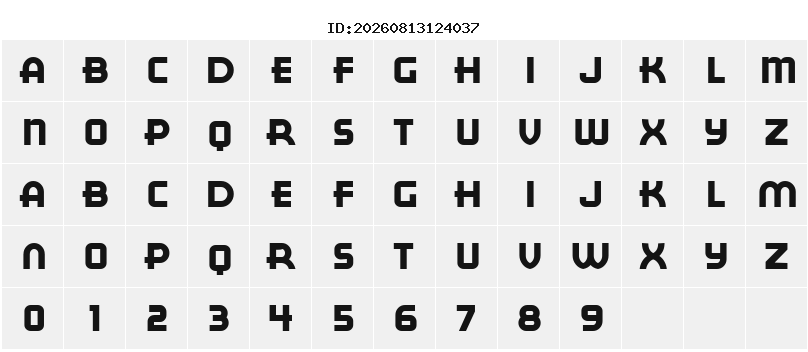
Red Circle Preview
About Red Circle.ttf
Red Circle.ttf is a modern, elegant sans-serif font designed for ultimate readability and visual harmony. Perfect for branding, headlines, web design, and print materials.